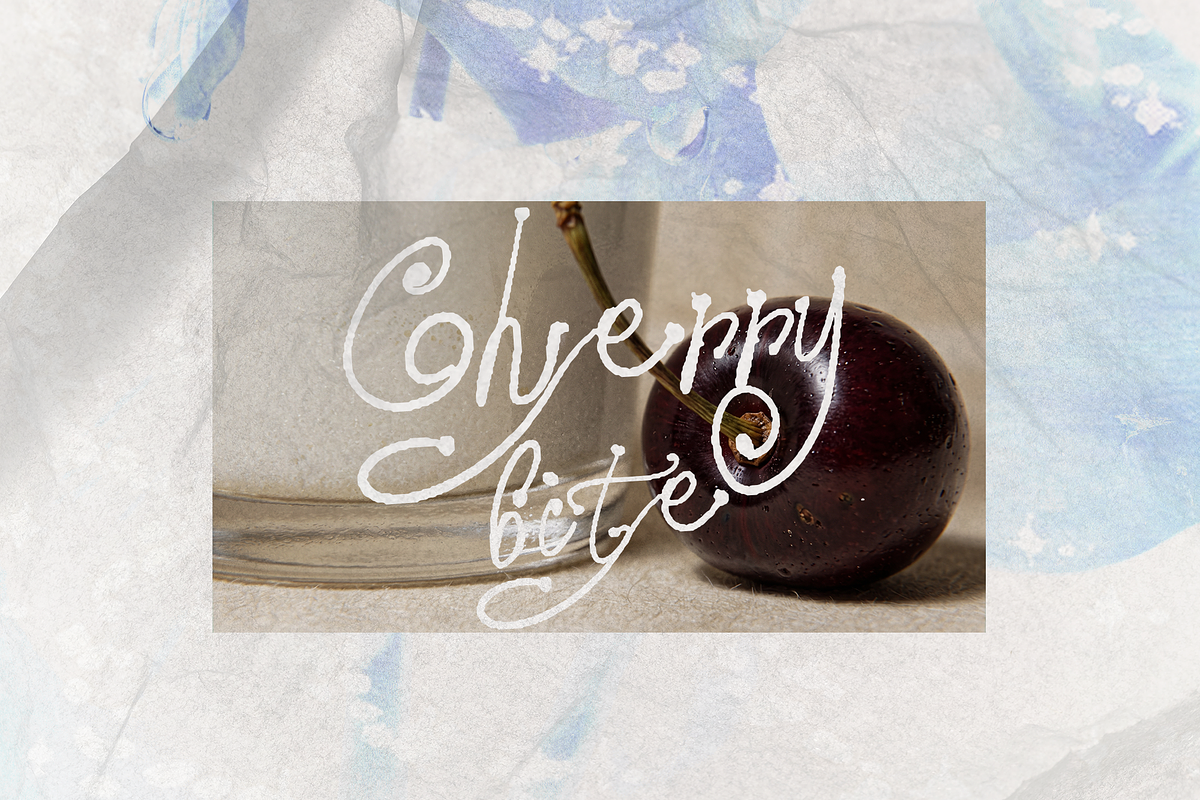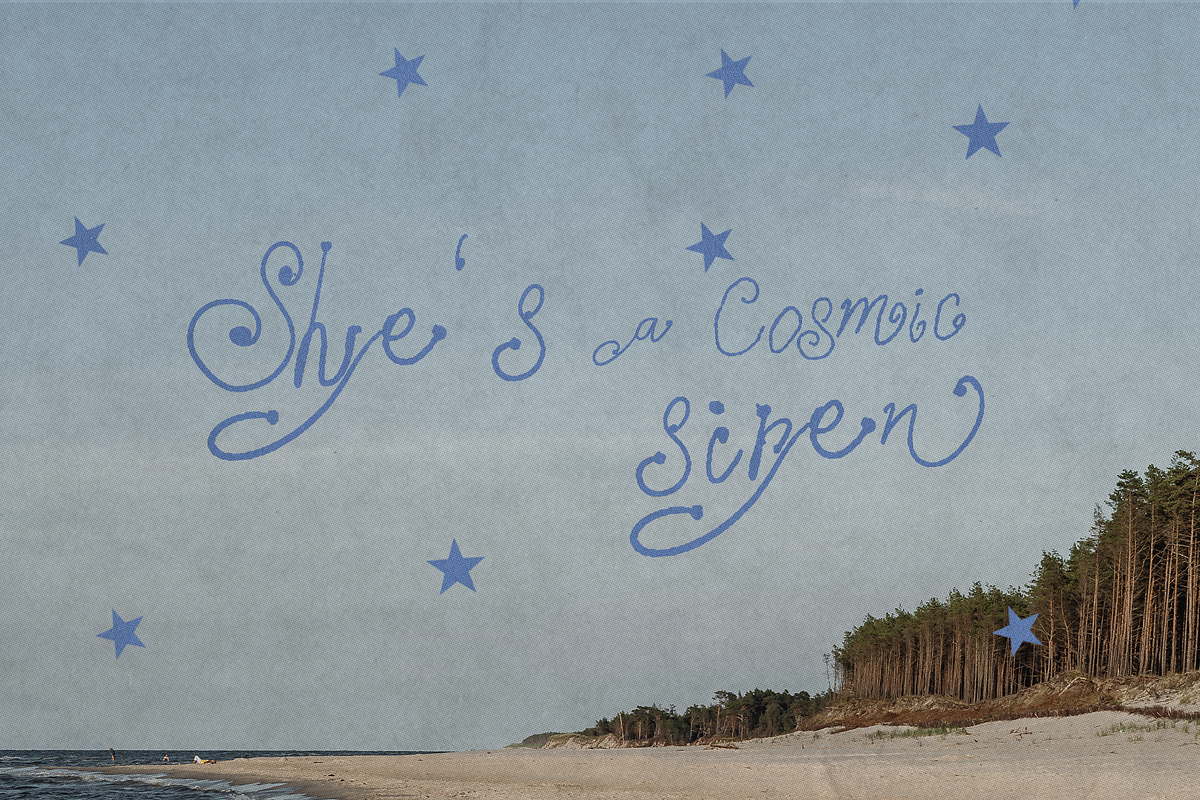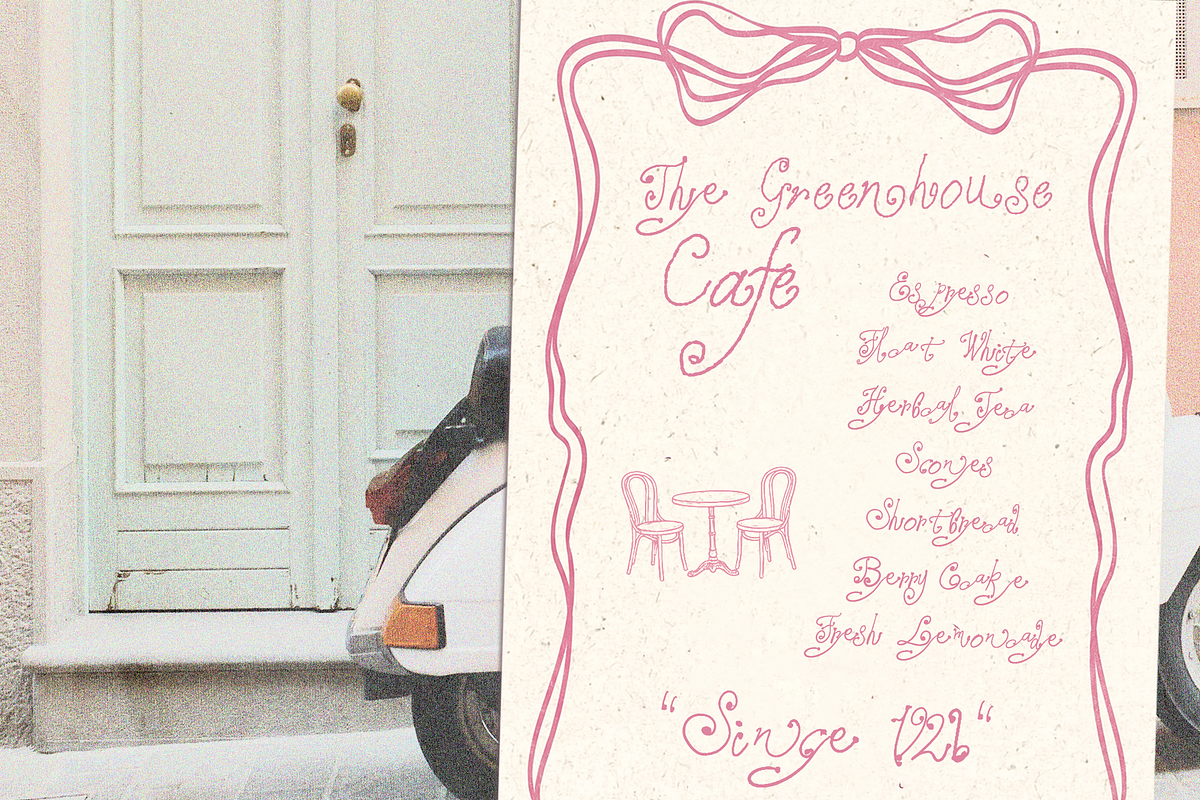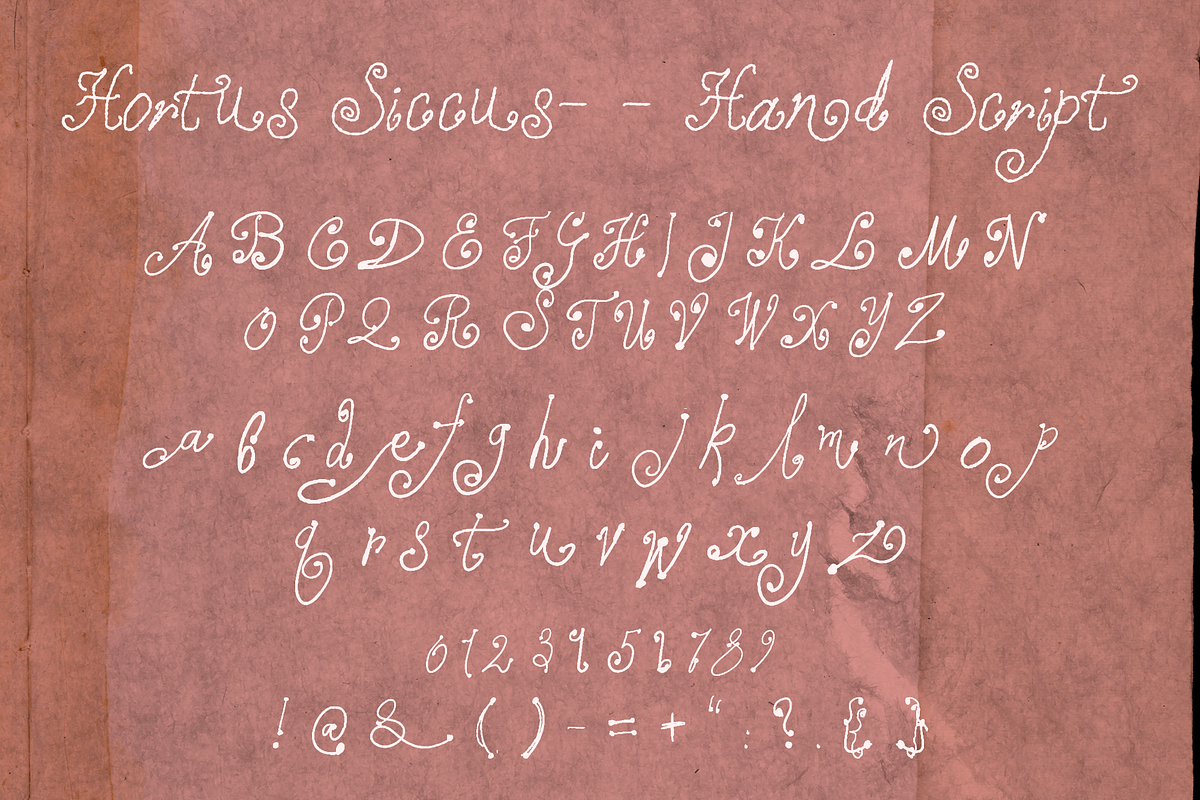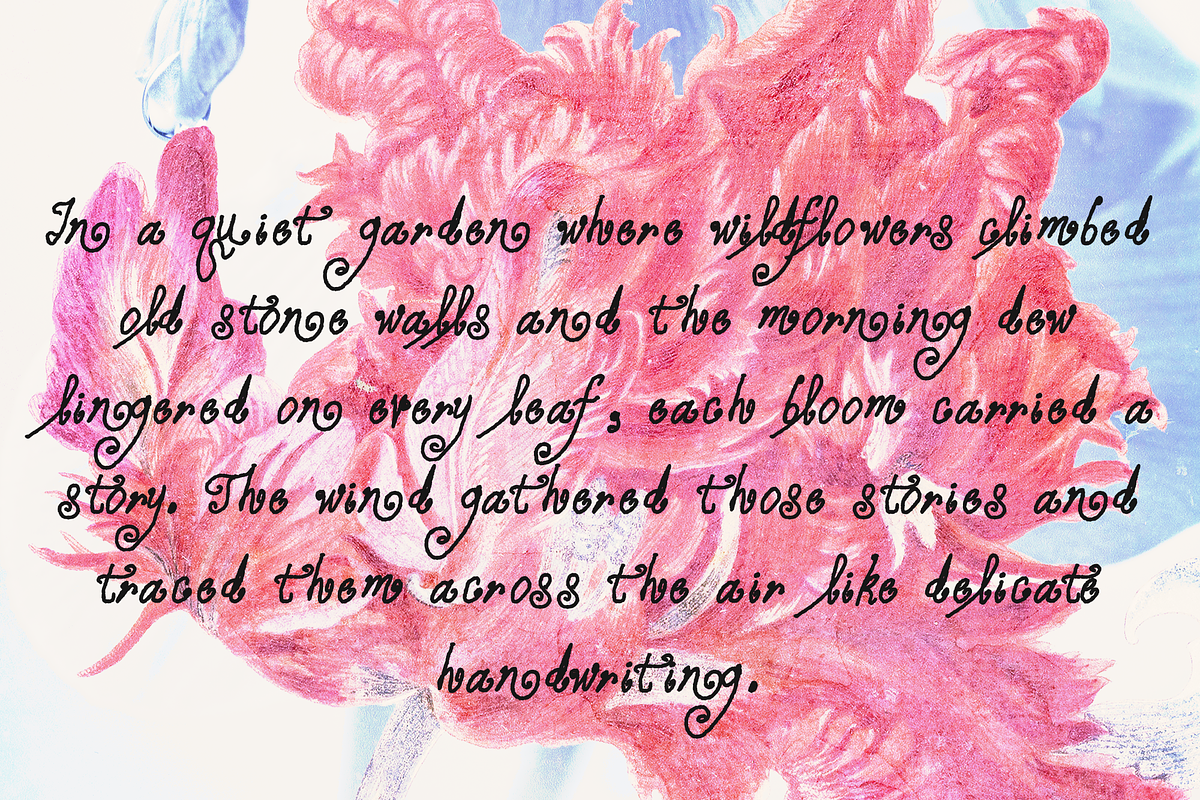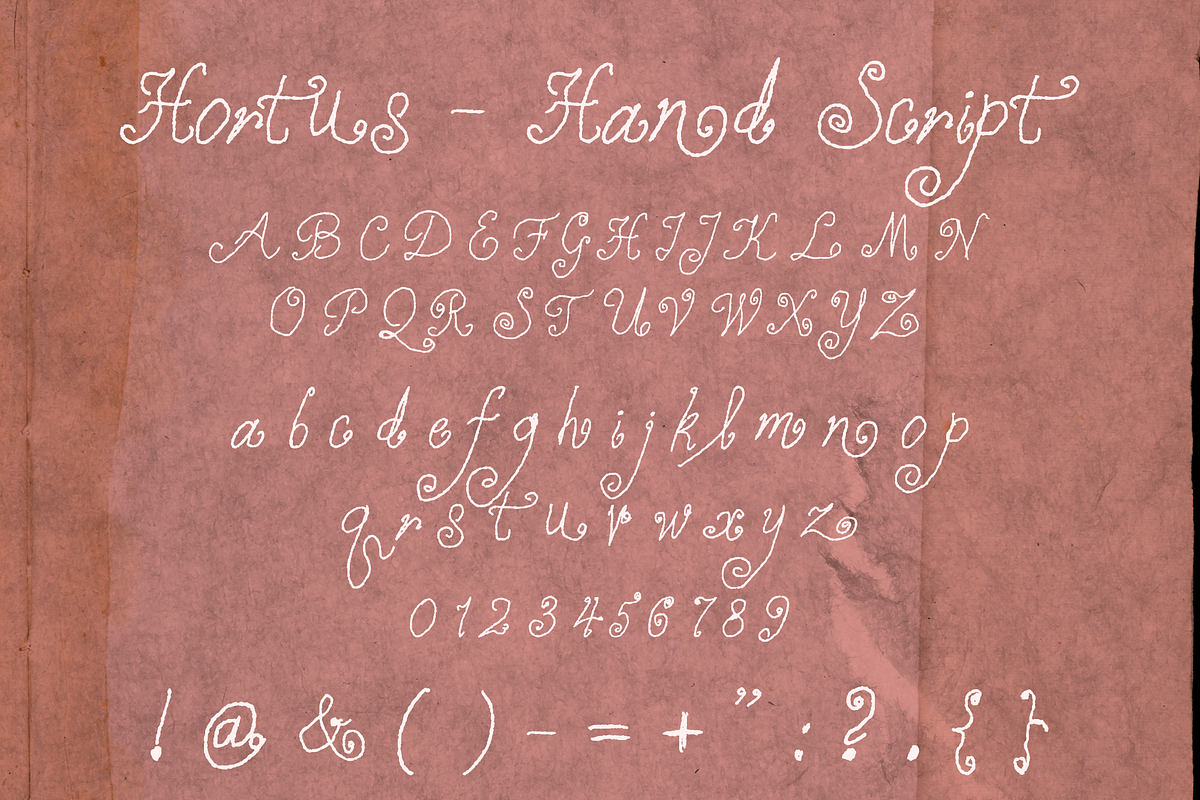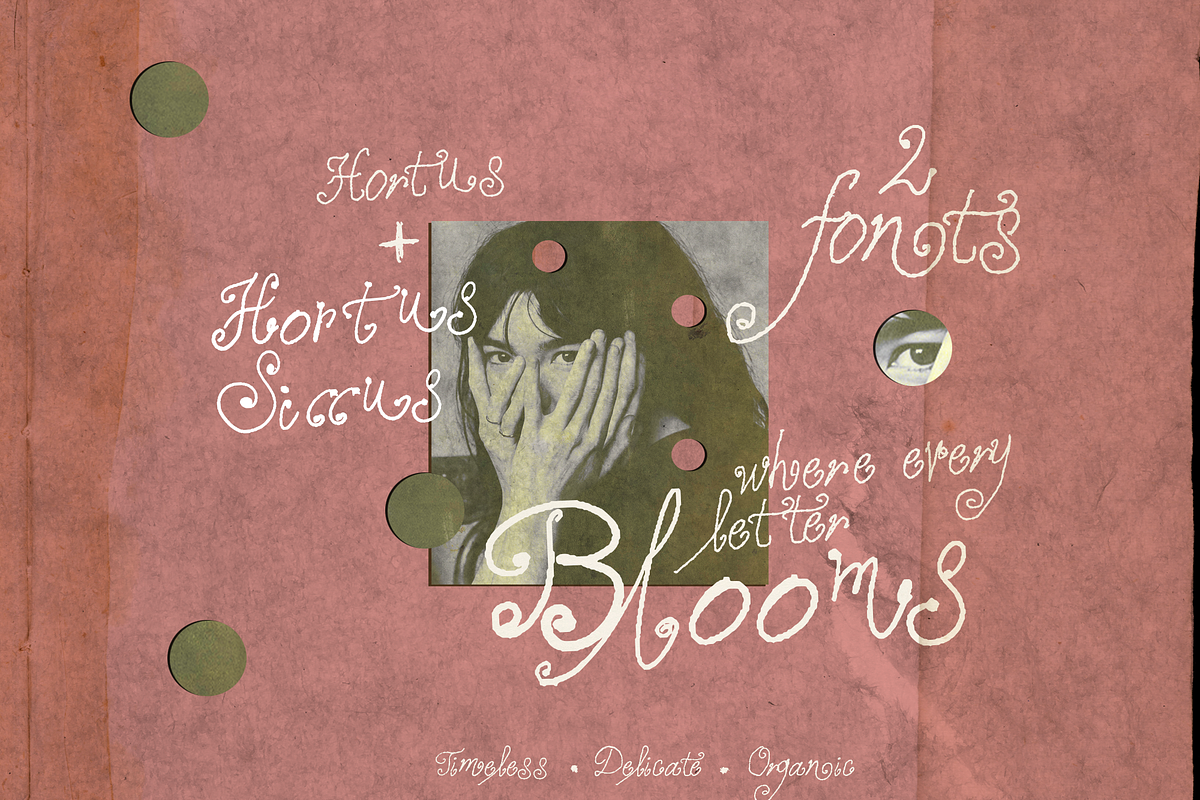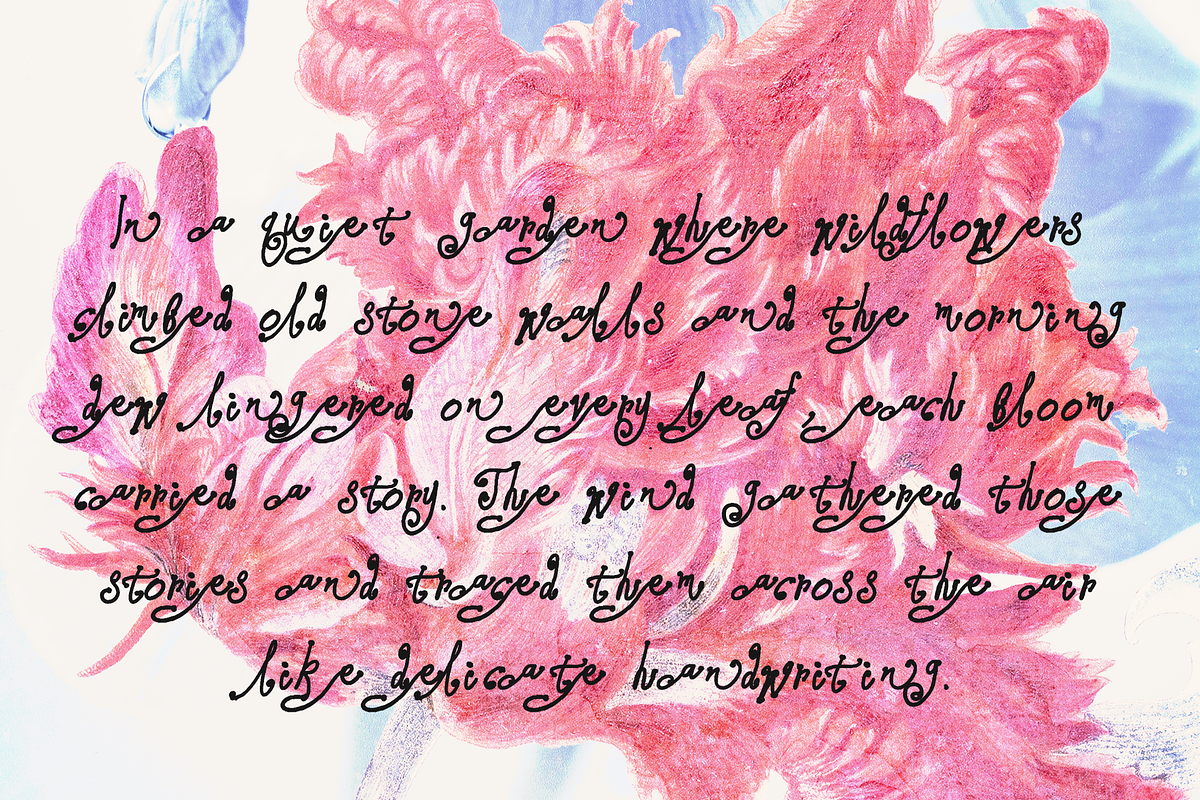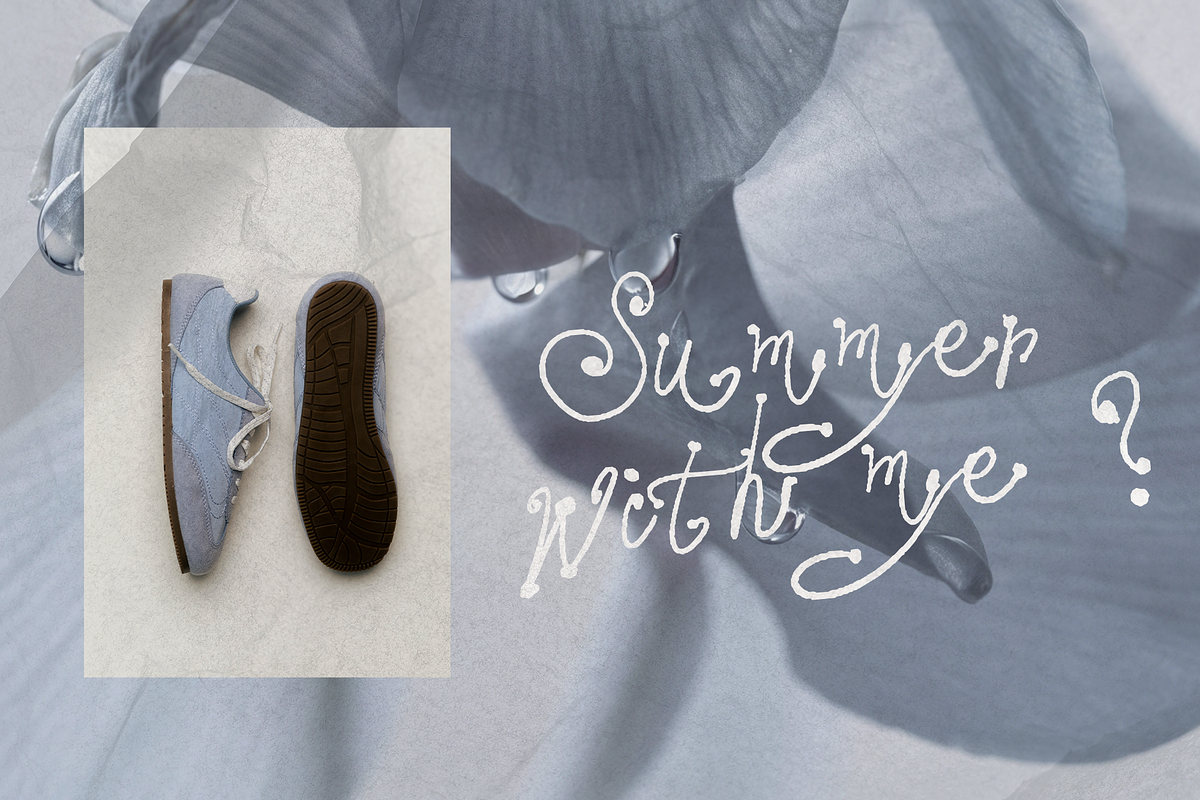
Hortus - Hand Script
Hortus – Hand Script & Hortus Siccus – Hand Script
Inspired by botanical journals, vintage herbariums, and the quiet beauty of nature, Hortus is a handcrafted script font full of graceful curves and organic character. Every letter was drawn by hand to create a delicate, imperfect look that feels authentic, elegant, and timeless.
Its companion, Hortus Siccus, offers a refined variation with a slightly different handwritten personality, perfect for mixing and matching within the same design.
Whether you're creating wedding stationery, branding, book covers, packaging, social media graphics, or botanical-inspired artwork, the Hortus Collection brings warmth, charm, and a touch of vintage romance to every project.
Perfect for
Wedding invitations
Branding & logos
Packaging
Book covers
Editorial design
Social media
Greeting cards
Quotes & typography
Botanical and vintage-inspired projects
Hortus – Hand Script
Hortus Siccus – Hand Script
Uppercase & lowercase letters
Timeless • Delicate • Organic